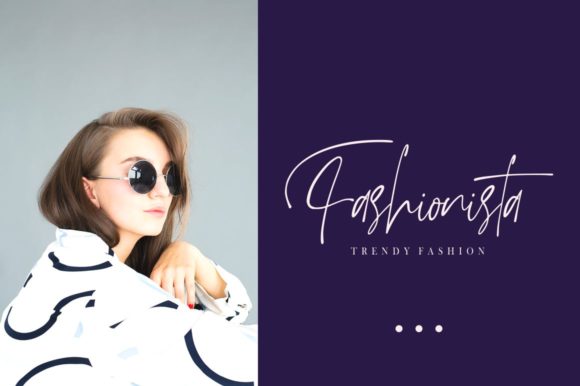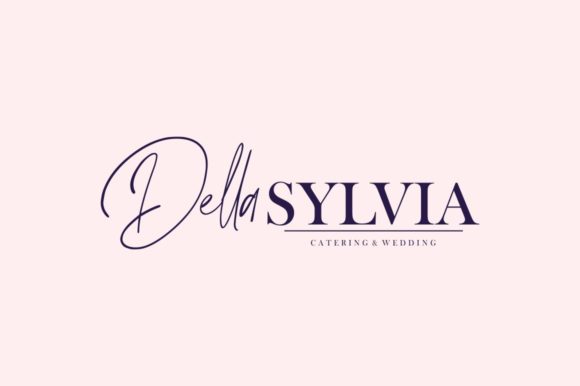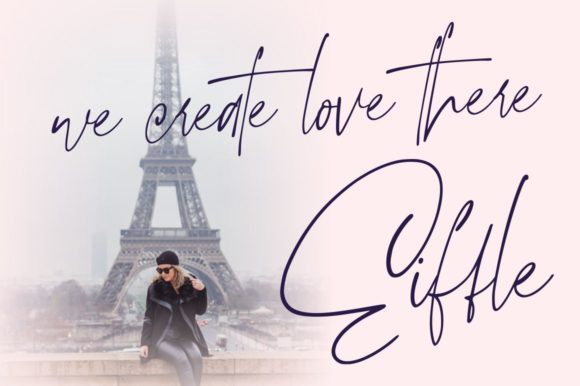
Introduction to Emilliya Font
Have you ever stared at a blank canvas, feeling like the perfect design is just out of reach? That’s when you know it’s time to break out the big guns – a high-quality design resource that can elevate your creative project from ordinary to extraordinary. For designers looking to add a touch of luxury and sophistication to their work, the Emilliya Font is a game-changer.
With its unique charm and spacious feel, the Emilliya Font is the perfect addition to any design. Whether you’re working on a branding project, creating a logo, or designing a website, this font is sure to make your design stand out from the crowd. Plus, with a free download available, you can start incorporating this beautiful font into your work right away – even on projects with transparent backgrounds.
As a valuable resource for designers, the Emilliya Font offers a level of versatility and style that’s hard to find elsewhere. Its high-quality design makes it a must-have for any creative project, and its unique character is sure to inspire you to new heights of design excellence.
Key Features of Emilliya Font
- High-quality design resource for creative projects, perfect for use in logos, branding, and marketing materials.
- Features a high-resolution design, suitable for use at various sizes and resolutions, including print and digital applications.
- Unique, elegant design that sets it apart from other fonts, making it a great choice for designers looking to add a touch of sophistication to their projects.
Honest Review: Emilliya Font
I recently stumbled upon the Emilliya Font while searching for free download resources for a creative project. I must say, I was quite impressed with the result.
What works well is the high quality of the font, which offers a unique and elegant look that’s perfect for any design project. The font’s transparent background makes it easy to customize and blend with any background image. The font’s versatility is another advantage, as it can be used for a wide range of creative projects, from logos to headings.
The Emilliya Font is a great addition to any designer’s toolbox. Here are some of its key features:
- High-quality design with a unique and elegant look
- Perfect for logos, headings, and other creative projects
⚠️ One of the limitations of the Emilliya Font is its limited character set. It’s not ideal for extensive text content, but for headings and short phrases, it works well.
Overall, I’m quite impressed with the Emilliya Font. It’s a great design resource that’s perfect for creative projects. With its high quality, unique look, and free download availability, it’s a must-have for any designer.
Getting the Most Out of Emilliya Font
To get the most out of Emilliya Font, experiment with different font sizes, colors, and styles to create visually appealing designs. You can also combine it with other design elements, such as graphics and images, to create a unique look.
The Emilliya Font is ideal for a variety of creative projects, including social media graphics, posters, flyers, presentations, and documents. Its high-quality features and transparent background make it a versatile design resource for professionals and hobbyists alike.